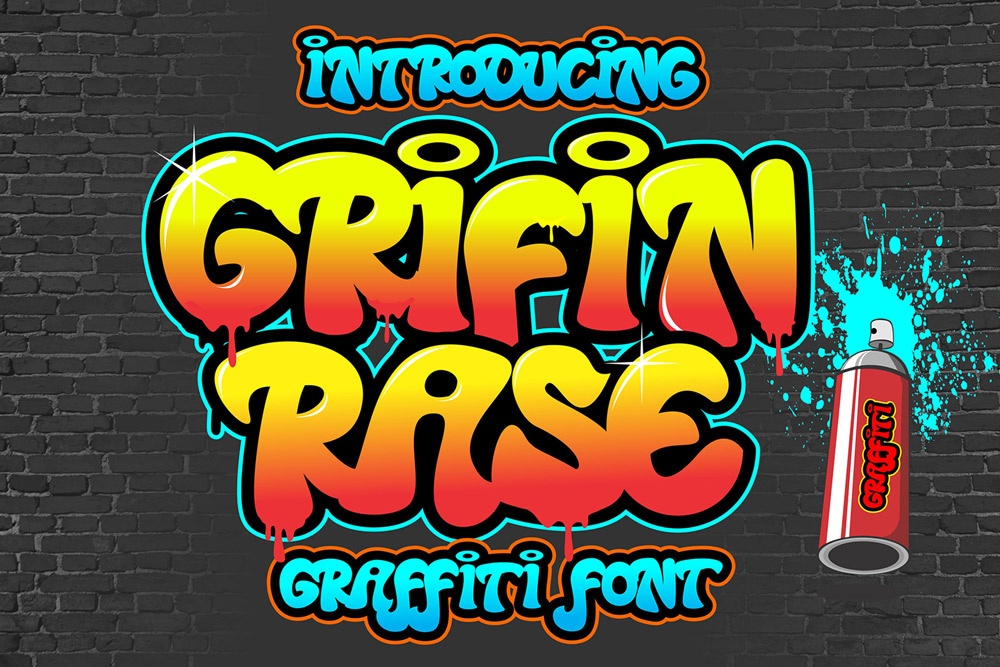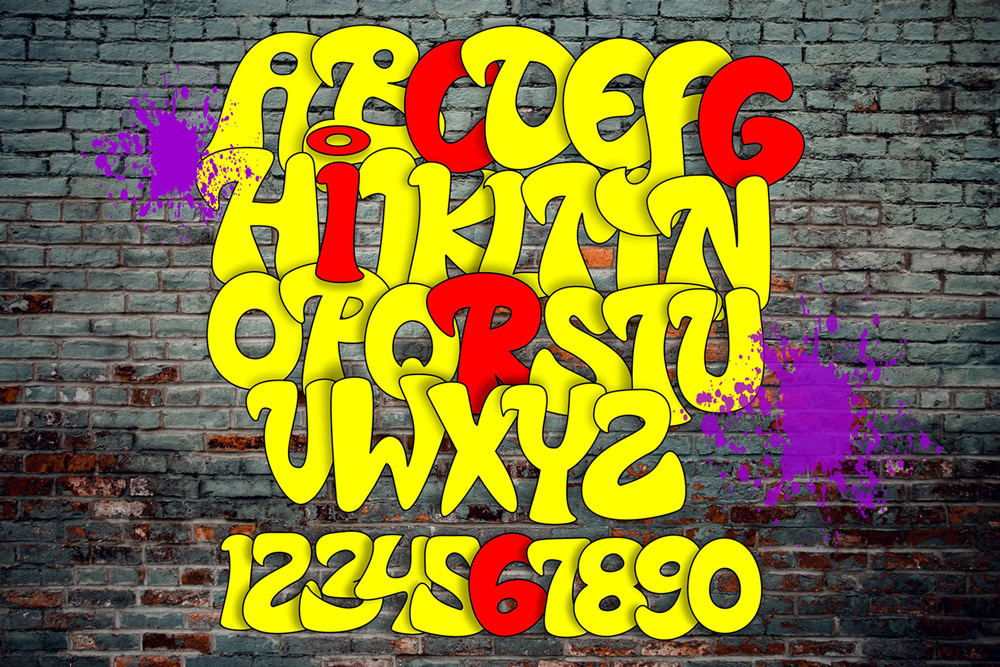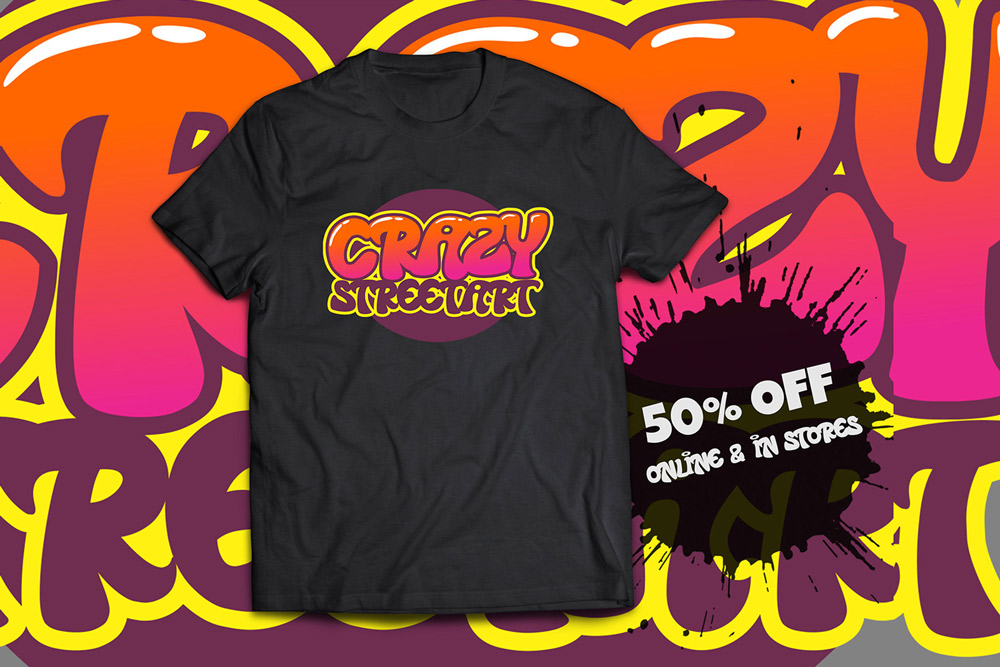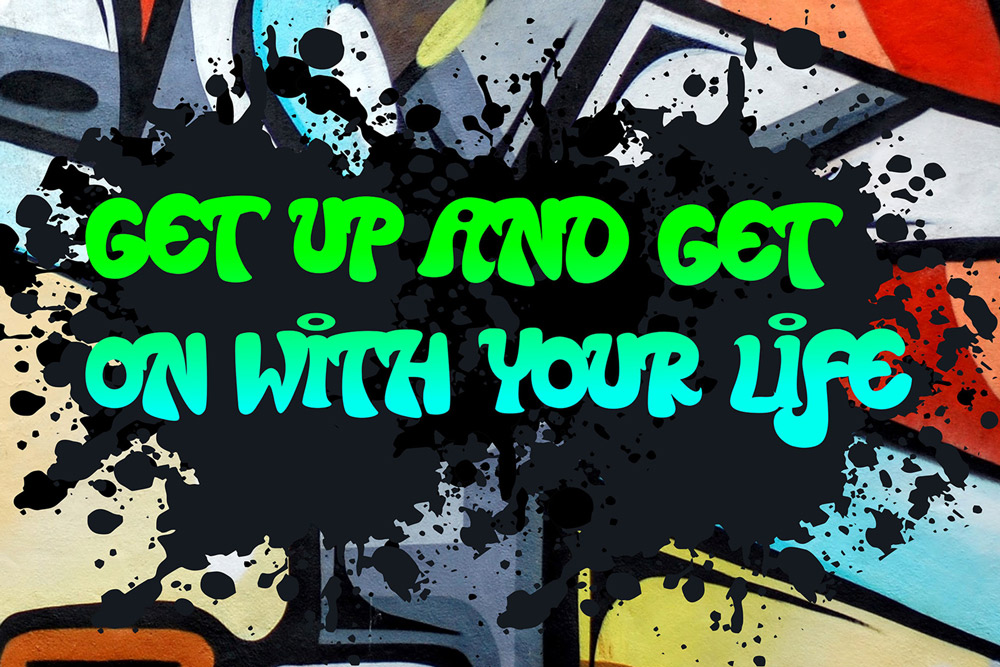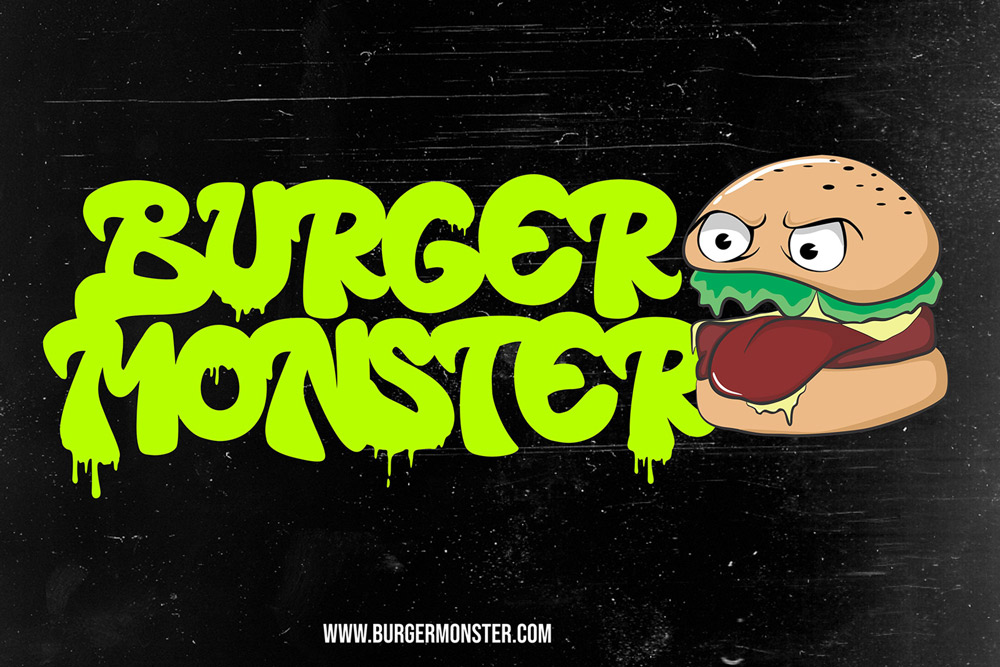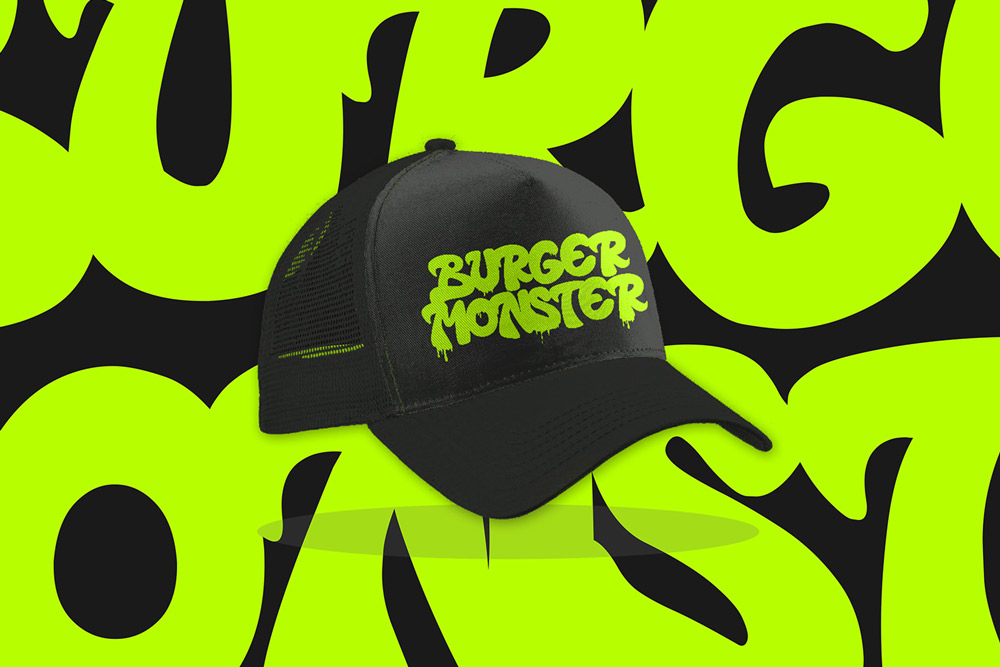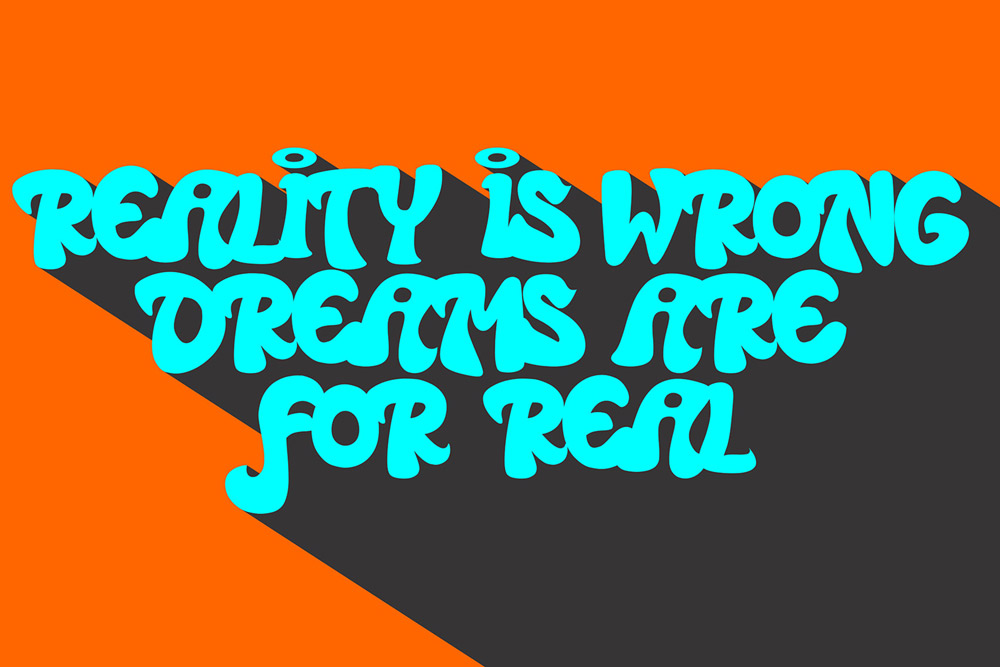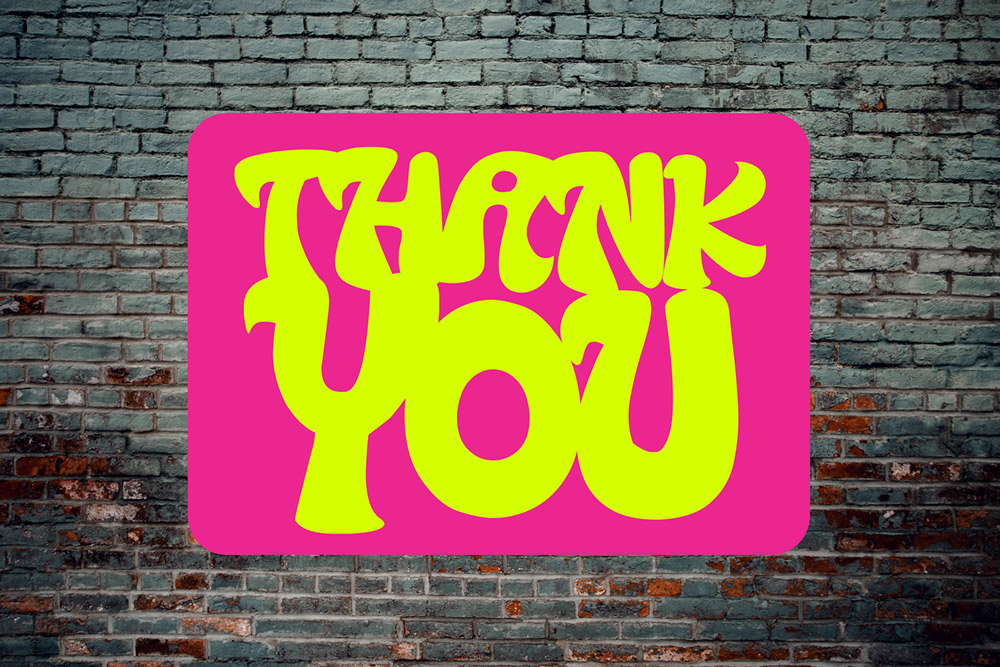
About Grifin Rase
Grifin Rase is a modern wavy graffiti font inspired by flowing street lettering, urban graffiti murals, underground spray paint culture, and contemporary streetwear typography. Designed with dynamic curves and expressive wave-inspired letterforms, this urban display font delivers energetic visual movement for creative projects that demand bold street personality. Whether you are building streetwear branding, gaming graphics, music artwork, social media visuals, or poster designs, Grifin Rase helps your typography stand out with authentic urban energy.
This wavy graffiti font combines modern display typography with fluid street-inspired aesthetics, creating a unique visual identity perfect for creators who want bold and stylish urban lettering. The flowing graffiti structure gives every composition a sense of motion and rhythm, making the font ideal for attention-grabbing headlines, logos, apparel graphics, and digital campaigns.
Grifin Rase is carefully crafted to maintain readability while preserving the raw energy of authentic graffiti culture. The smooth wave-inspired details create a modern urban atmosphere that works beautifully across print and digital media. From esports branding and hip hop posters to fashion campaigns and YouTube thumbnails, this modern graffiti font adapts perfectly to different creative styles.
Wavy Graffiti Font Style
Grifin Rase features flowing graffiti-inspired letterforms influenced by urban street art, spray paint tags, mural typography, and wave-style graffiti aesthetics. The smooth curves create a dynamic and modern street appearance.
Uppercase Characters
This urban graffiti font includes complete uppercase characters designed with expressive wave-inspired details and strong street personality.
Multilingual Support
Grifin Rase supports multilingual characters, allowing creators to design international branding projects, posters, social media graphics, and merchandise with ease.
Number and Punctuation
This modern graffiti font includes complete numbers and punctuation marks for versatile typography compositions across digital and print applications.
Why Designers Love Grifin Rase
Unique Flowing Urban Aesthetic
Designers love Grifin Rase because it combines authentic graffiti culture with smooth flowing typography. The wavy structure creates energetic visual movement that feels modern and artistic.
Perfect for Streetwear Branding
Grifin Rase works exceptionally well for clothing brands, sneaker promotions, skateboard graphics, urban fashion campaigns, and youth-focused branding systems.
Great for Music and Gaming Graphics
This flowing graffiti font is ideal for hip hop album covers, rap music posters, gaming logos, esports graphics, Twitch banners, and YouTube thumbnails. The wave-inspired style creates strong visual impact.
Eye-Catching Social Media Typography
Content creators and digital marketers use Grifin Rase for Instagram posts, TikTok graphics, YouTube banners, and promotional campaigns because the typography feels energetic and highly engaging.
Easy to Use Across Creative Projects
Despite its artistic graffiti appearance, Grifin Rase maintains strong readability and works effectively for posters, branding systems, merchandise, advertising, and digital graphics.
Perfect For
Grifin Rase is perfect for:
- Streetwear branding
- Urban logo design
- Graffiti posters
- Gaming typography
- Esports branding
- Hip hop album covers
- Rap music graphics
- Social media content
- YouTube thumbnails
- Skateboard artwork
- Fashion campaigns
- Urban merchandise
- Promotional banners
- Digital advertising
- Creative typography projects
- Youth branding visuals
- Festival posters
- Music event flyers
- Apparel graphics
- Modern street artwork
Wavy Graffiti Typography for Modern Branding
Modern branding trends increasingly embrace graffiti typography and fluid urban visuals because they communicate creativity, originality, movement, and youthful energy. Grifin Rase is specifically designed to support these modern design trends by combining flowing wave-inspired lettering with authentic street culture aesthetics.
The smooth wavy structure gives typography compositions a more dynamic and expressive appearance. This modern graffiti font is especially effective for oversized headlines, branding visuals, social media graphics, apparel artwork, and promotional campaigns targeting younger audiences.
Brands focused on gaming, fashion, music, entertainment, and digital content can use Grifin Rase to create memorable visual identities with strong urban personality. The flowing graffiti style helps designs feel more alive and visually engaging in competitive digital spaces.